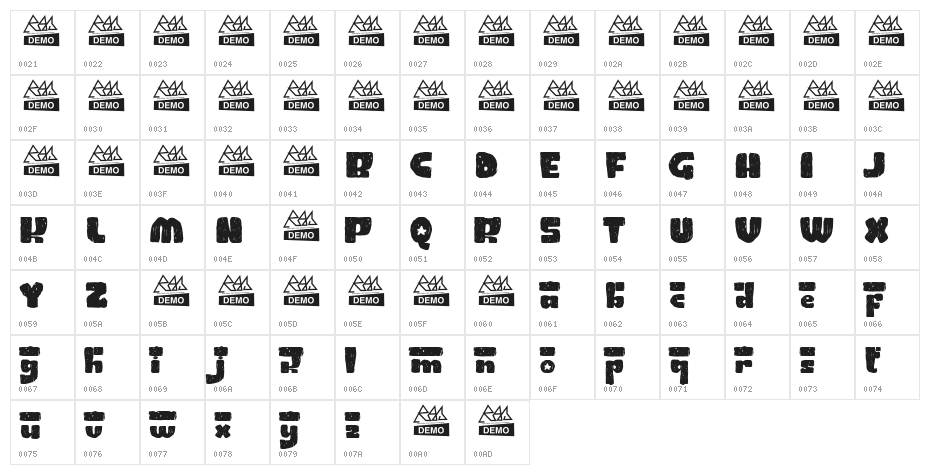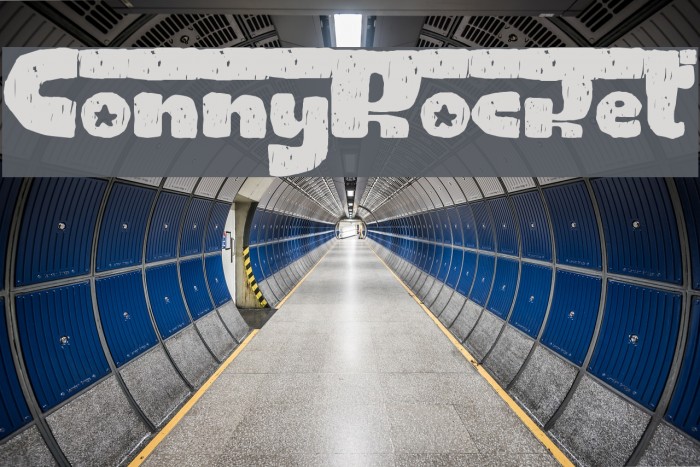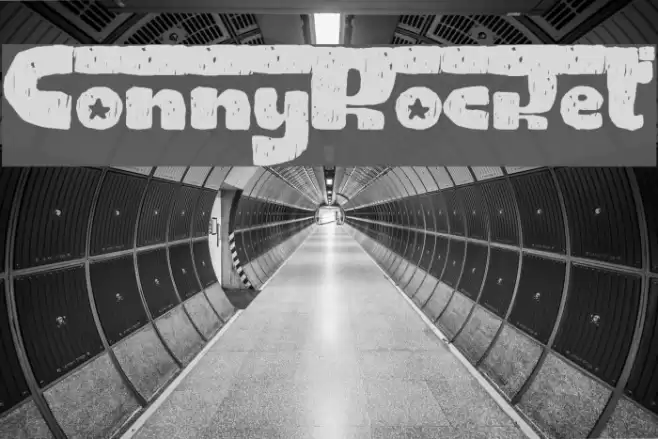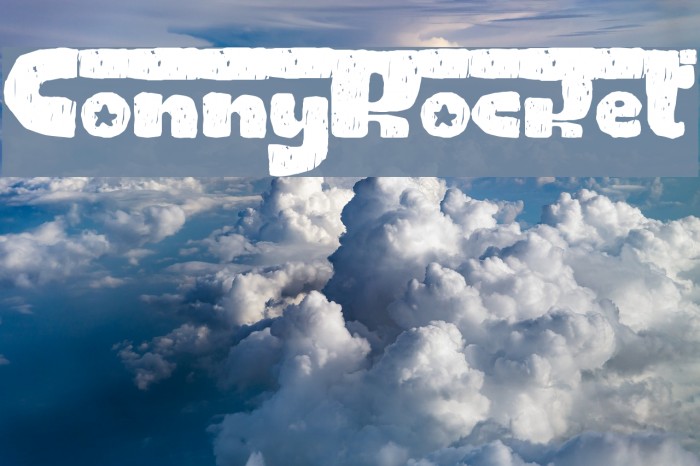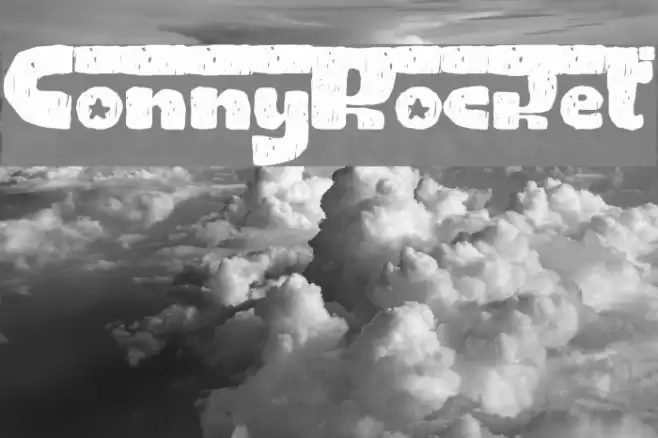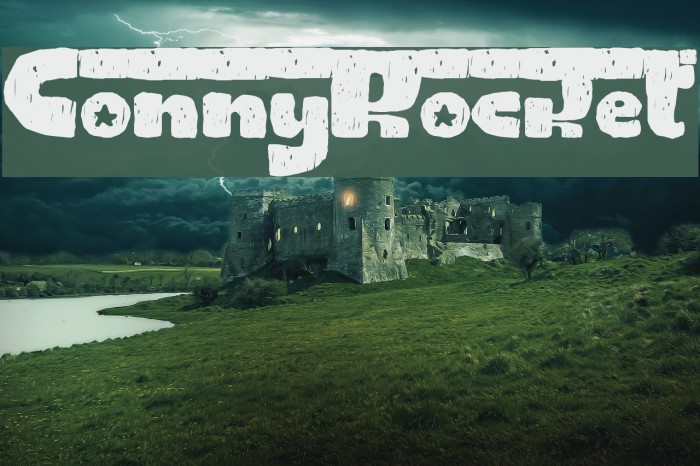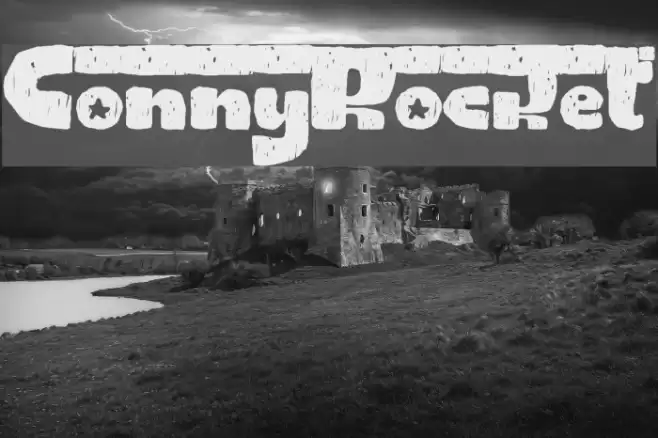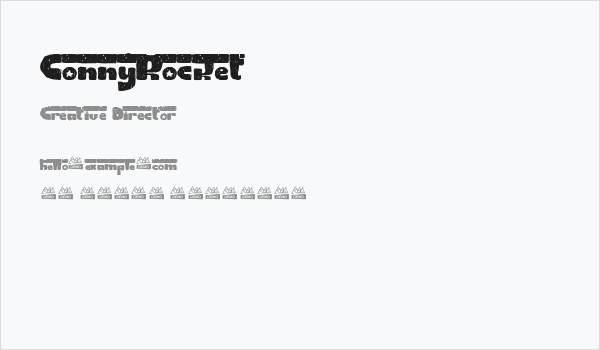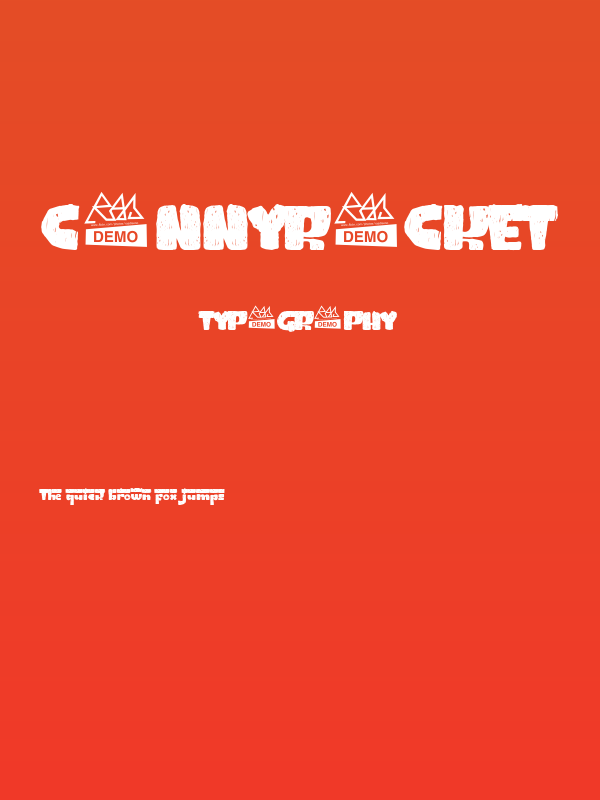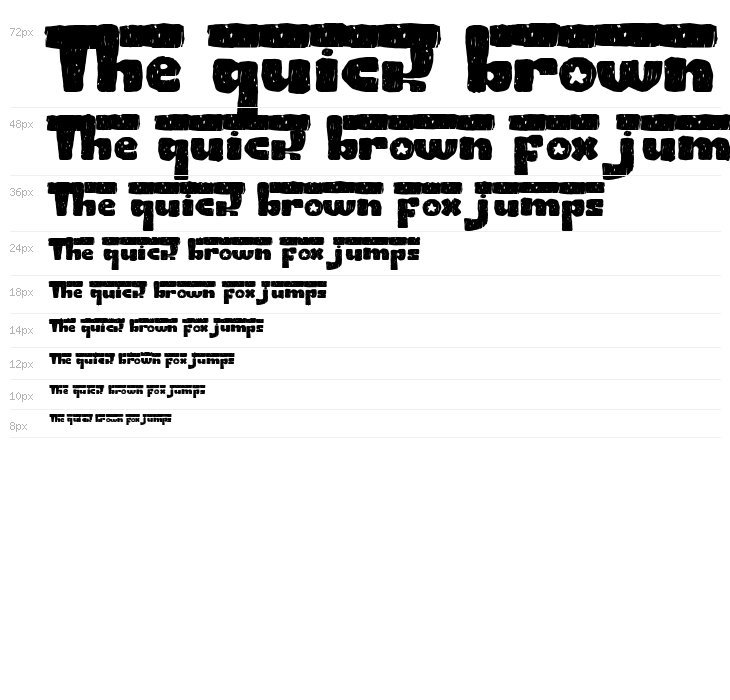
ConnyRocket Font
This font features a bold and playful design with a distressed texture that gives it a rugged, hand-crafted appearance. The characters are thick and rounded, creating a friendly and approachable look. The uppercase and lowercase letters maintain a consistent style, with the lowercase letters slightly more compact. The numbers and special characters are designed to match the overall aesthetic, ensuring a cohesive look across all text. This font's unique texture adds a layer of depth and interest, making it stand out in any design.
| Overall Style | Playful, Rugged |
| Proposed Projects | Ideal for posters, logos, children's books, and any project requiring a fun and eye-catching typeface. |